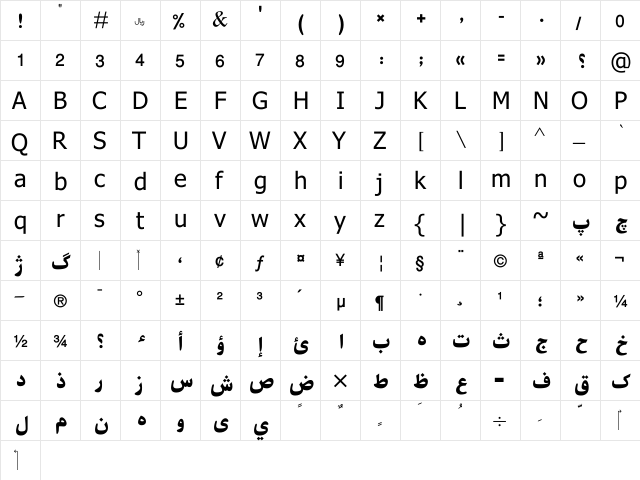
AGT Abdul Majeed Regular
| Designer | Ahmad Gul Totakhyl |
Design Context for AGT Abdul Majeed Typeface
AGT Abdul Majeed takes a measured approach to typography — its balanced proportions and neutral character make it a reliable workhorse for both digital and print work.